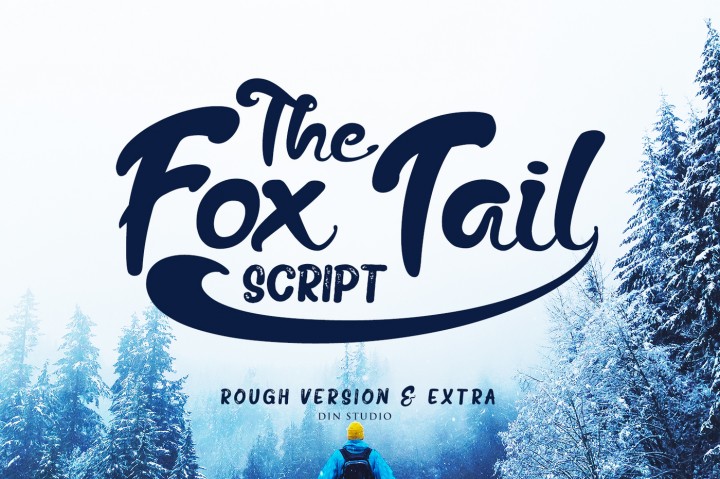
The Fox Tail Brush
The Fox Tail Brush Font
Hi Font Lovers ! i want to introduce The Fox Tail – Font Duo&Extras. The Fox Tail – Font Duo & Extras is a font that is inspired by the retro style and fox’s tail. This font has a unique and interesting shape.
The fox tail script is fun logotype brush.
consist of script and sans with rough version.